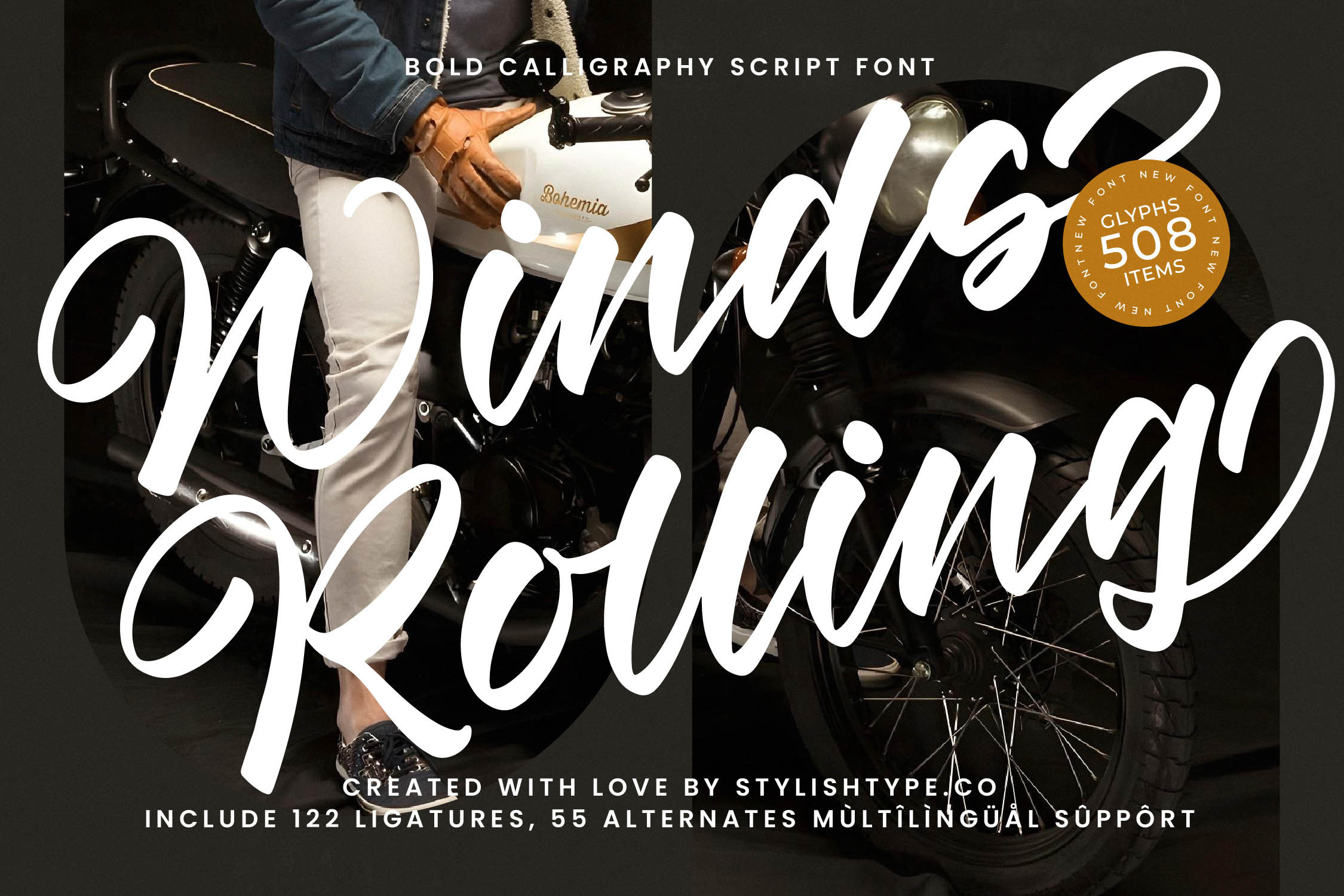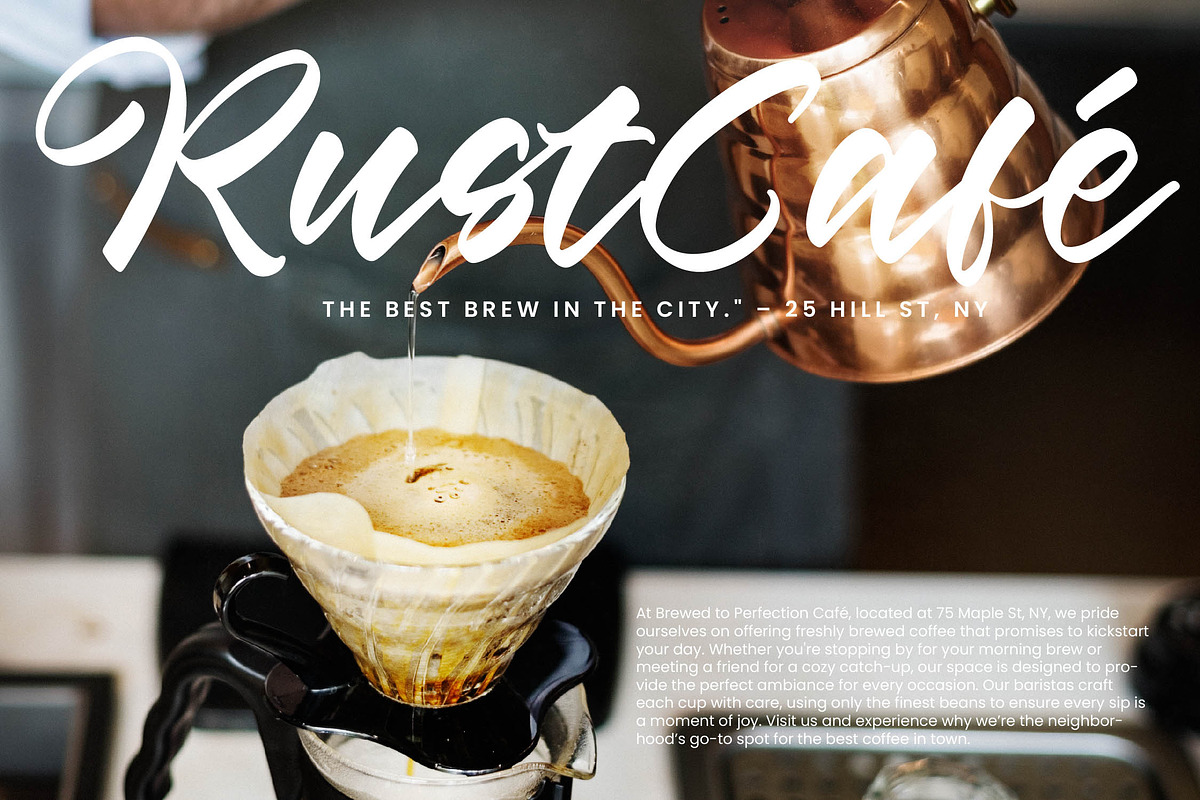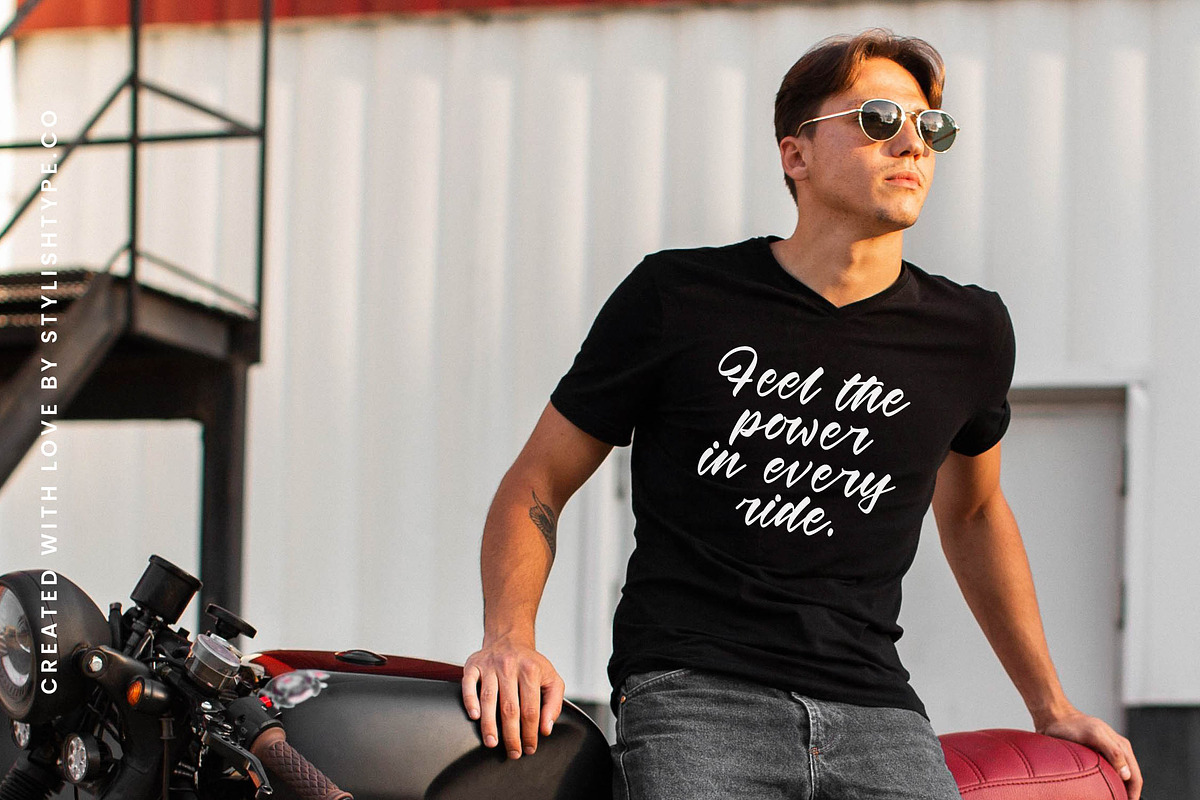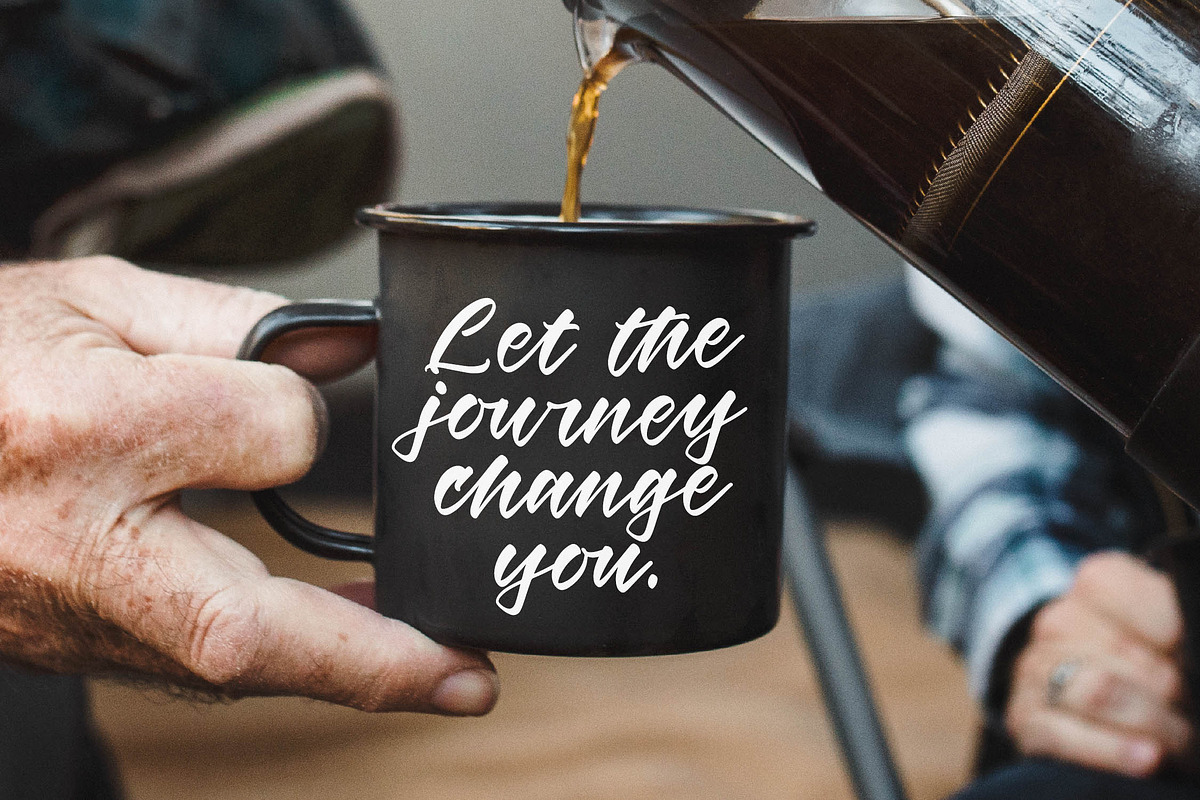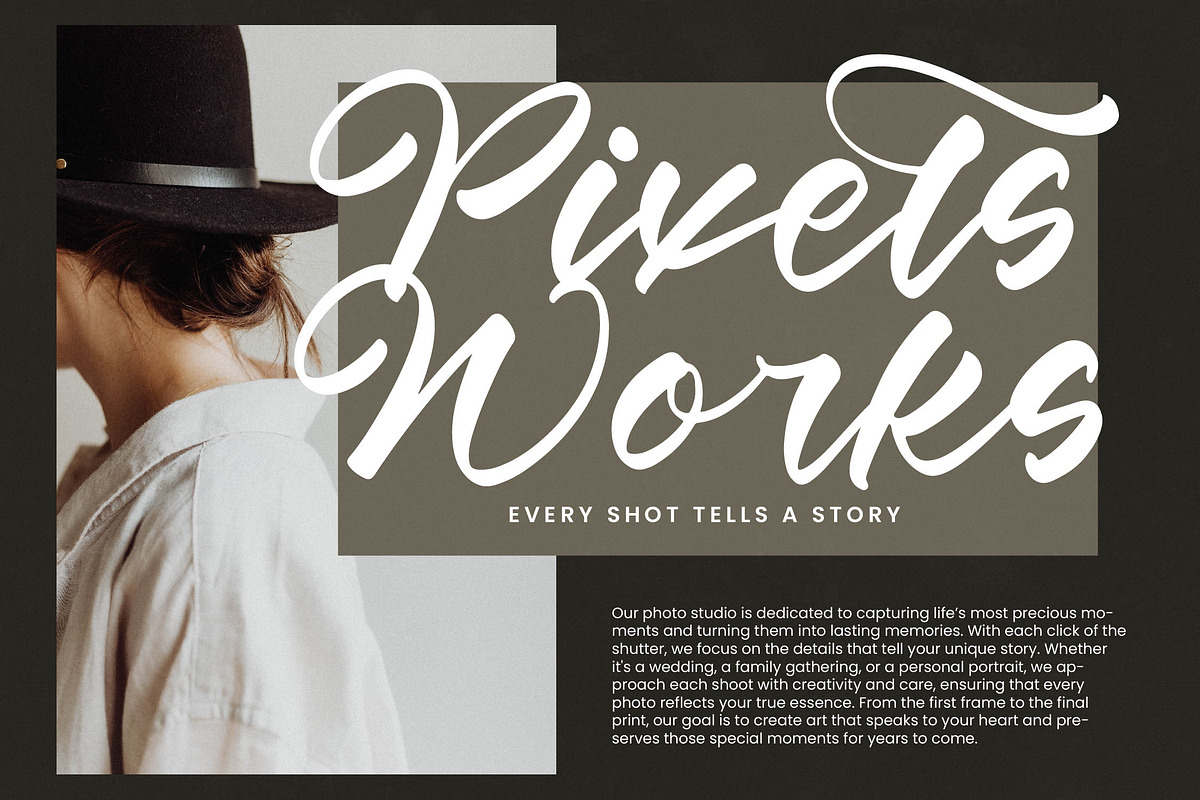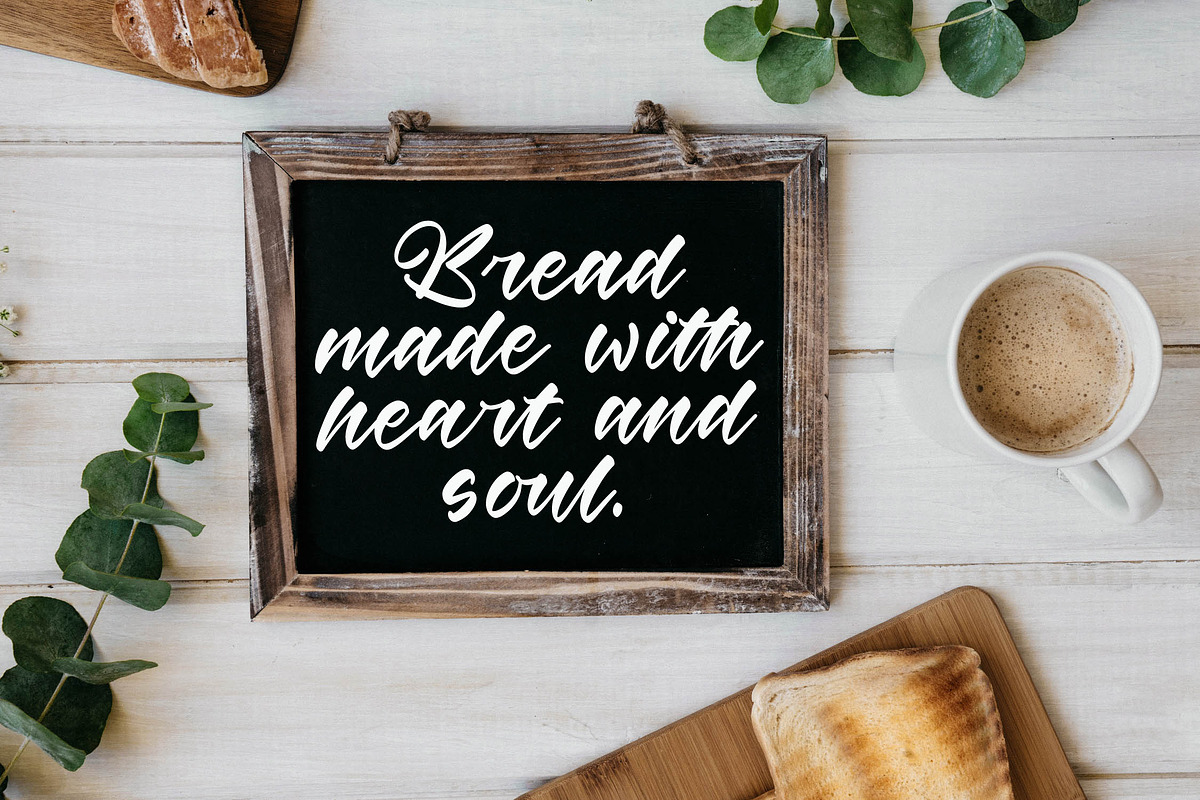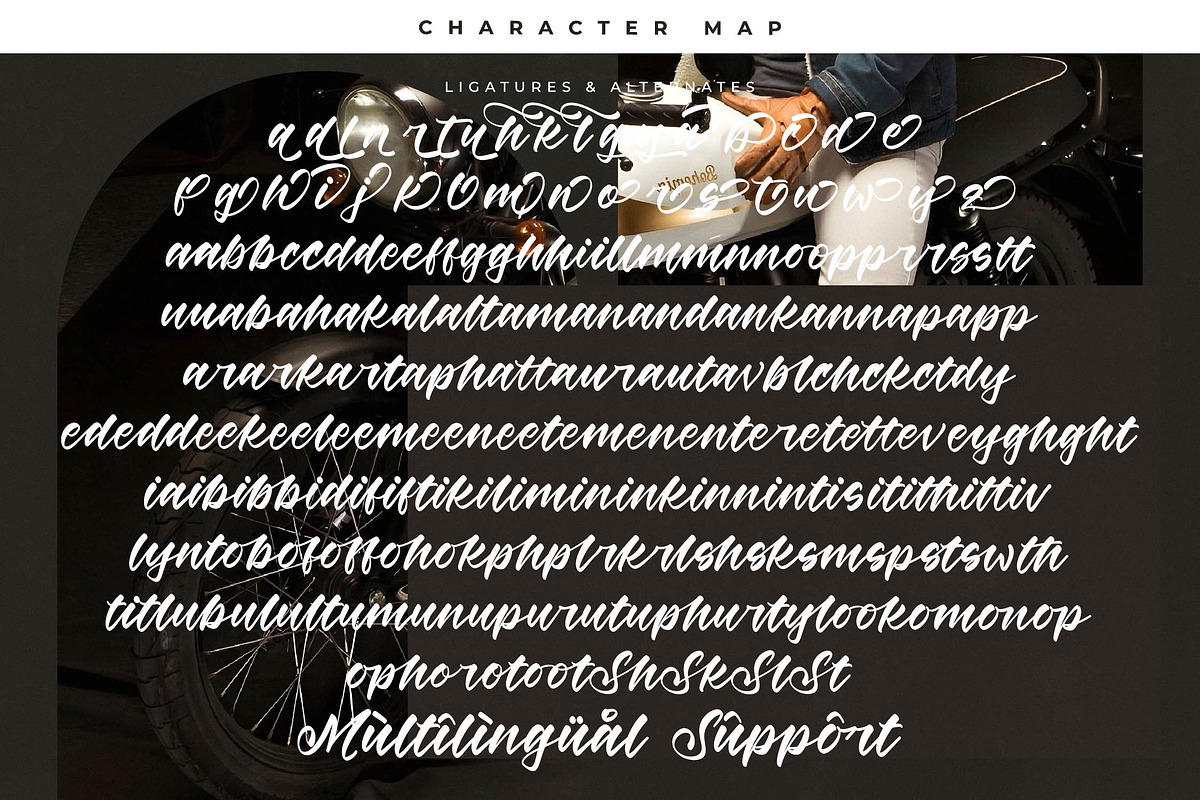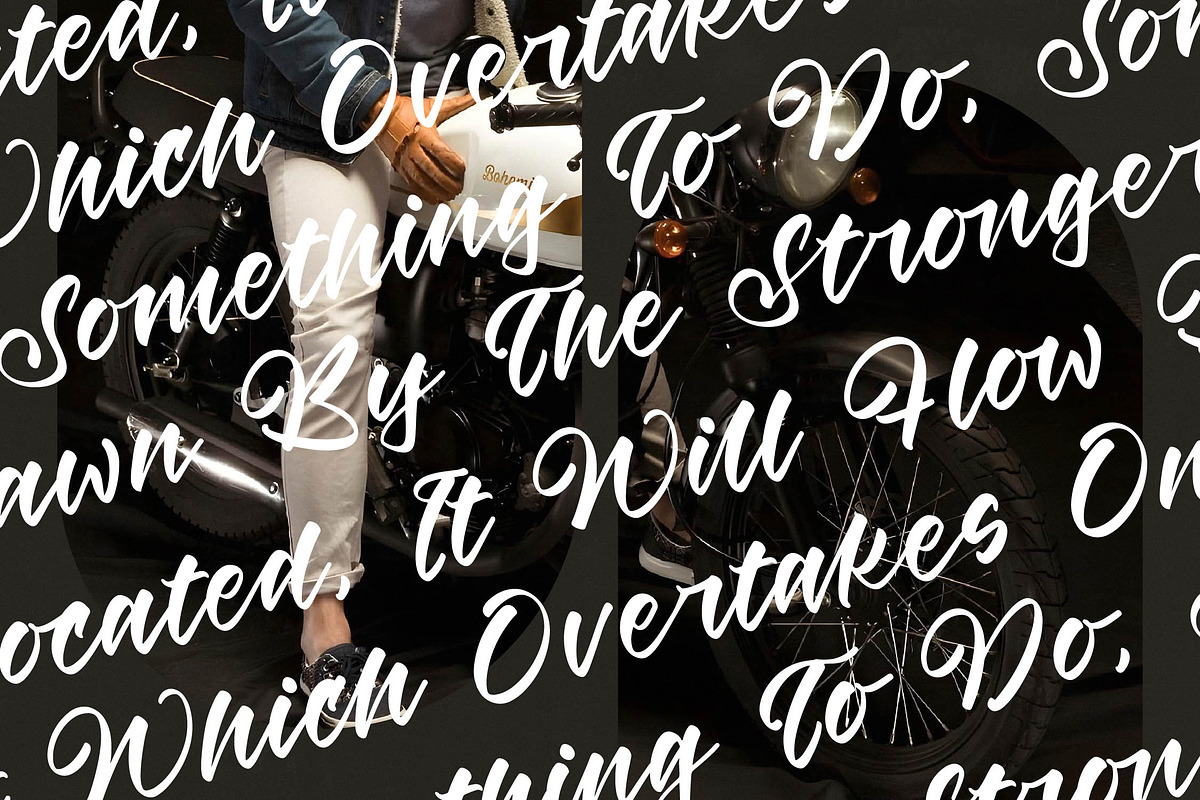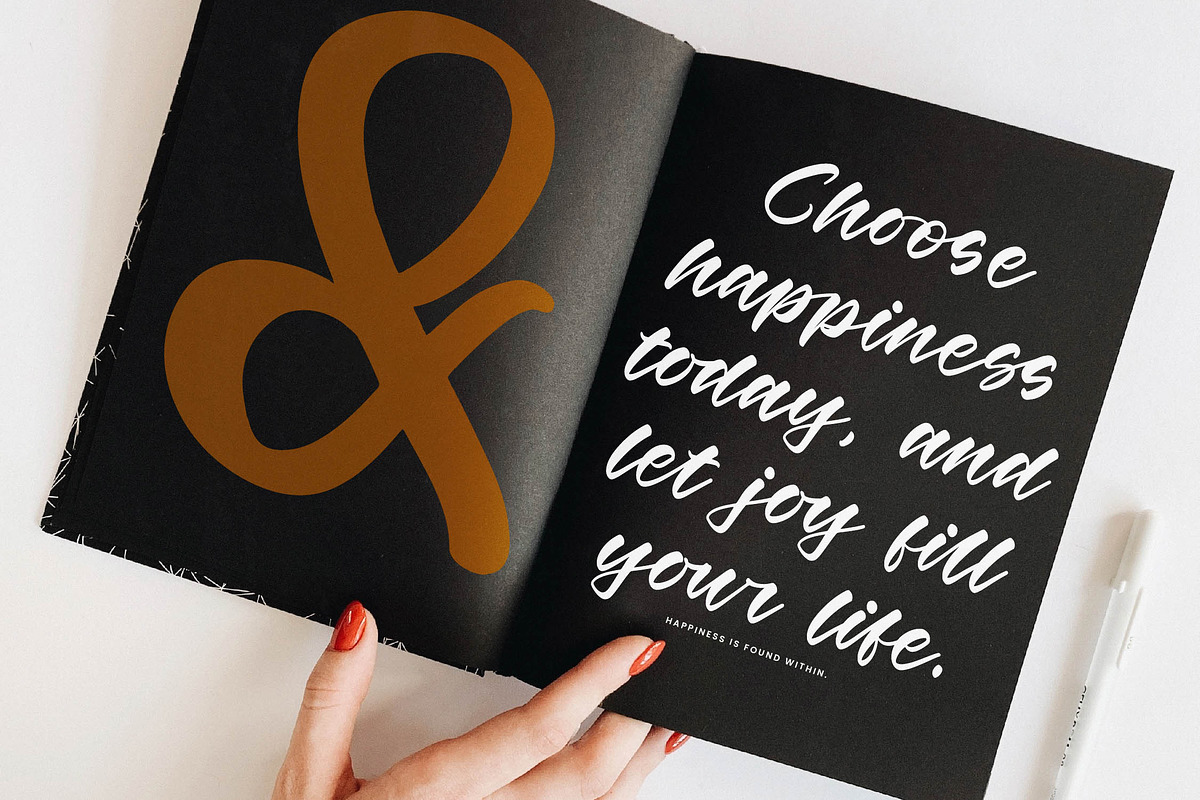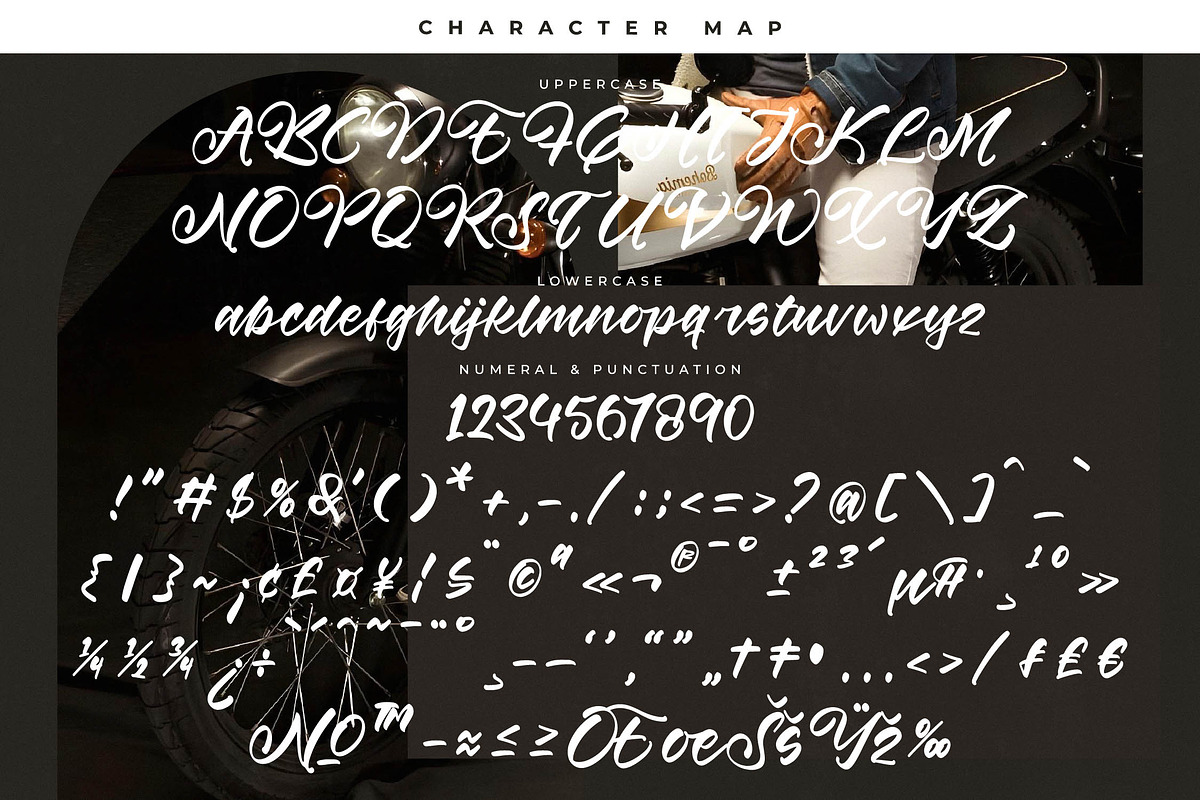
Winds Rolling Bold Calligraphy Font
Winds Rolling - Bold Calligraphy Script Font , from Stylishtype.Co , Suitable for any projects such as: logos, branding projects, homeware designs, product packaging, mugs, quotes, posters, shopping bags, t-shirts, book covers, name card, invitation cards, greeting cards, label, photography, watermark, special events, and all your other luxury and beautiful projects that need a Luxury Script taste.
- 122 Ligature 55 Alternates & Swashes